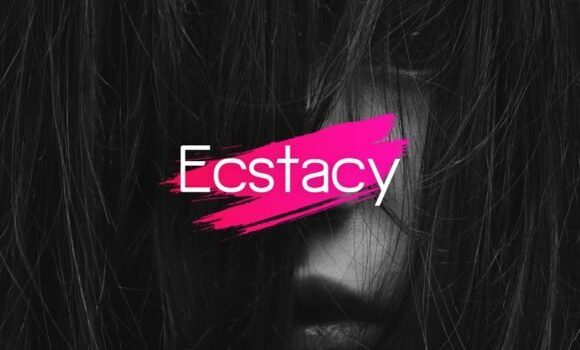
Ecstacy Font – Free Download Introduction to Ecstacy Font Ecstacy is a simple and natural sans serif font. 📸 Preview Gallery 3 images 📌 Product Name Ecstacy Font 👤 Author Webhance 📂 Category Explore ⬇️ Download Ecstacy Font FREE Free